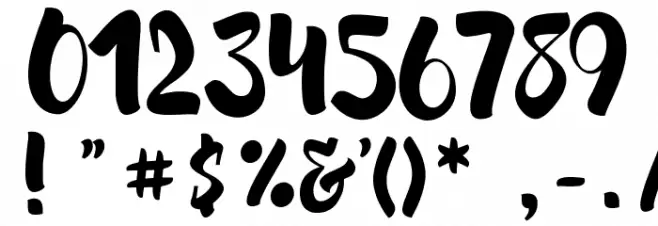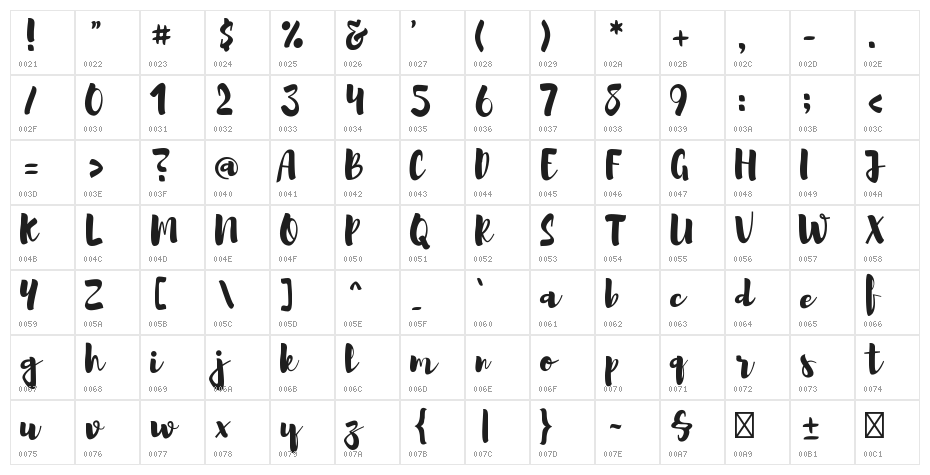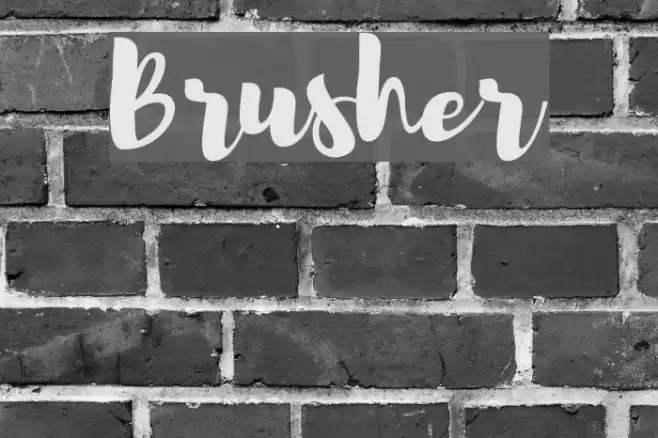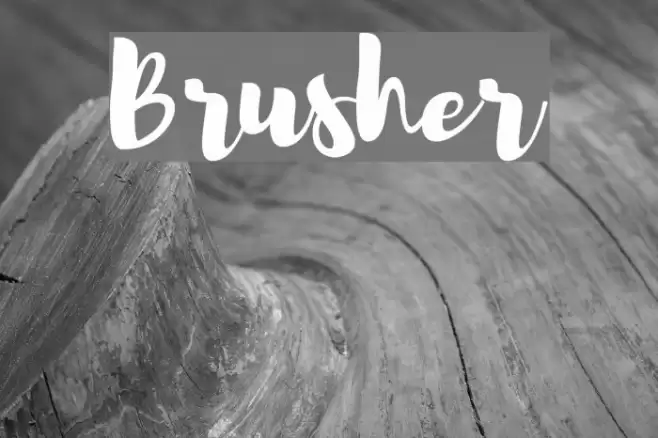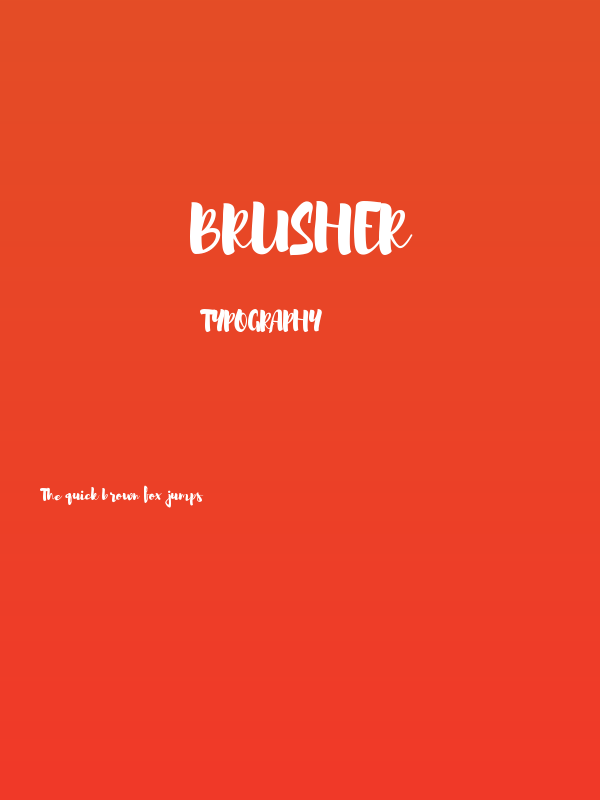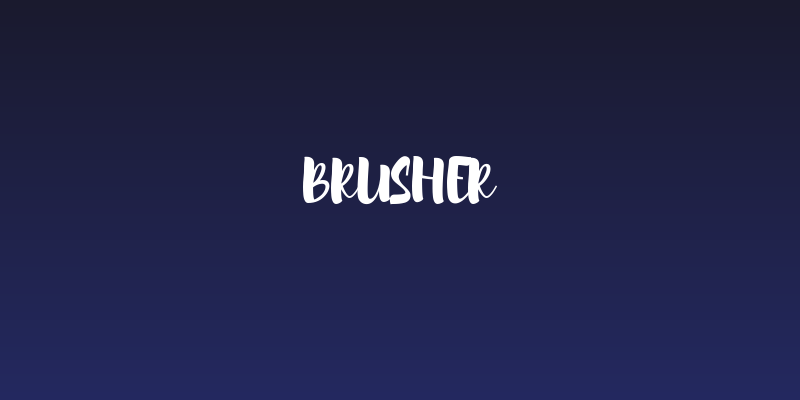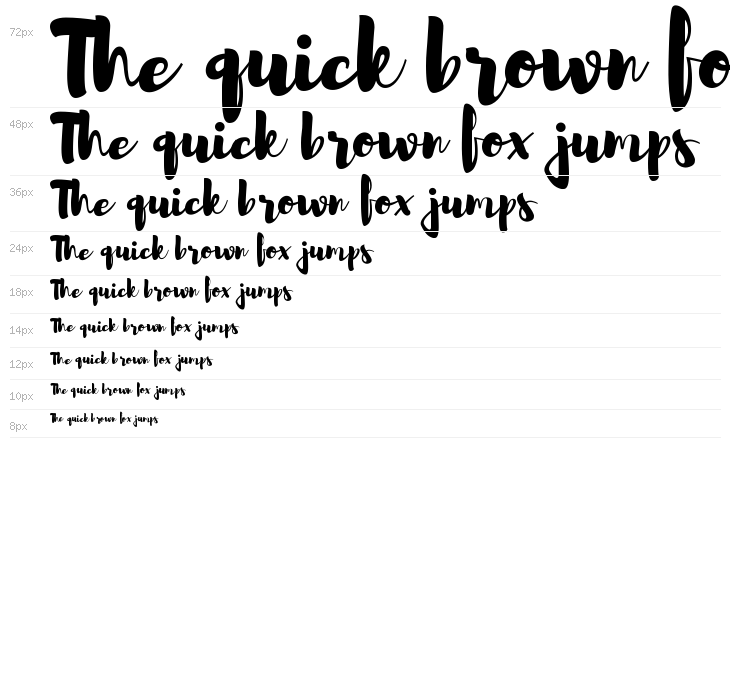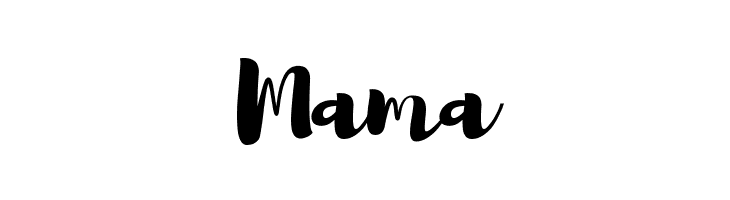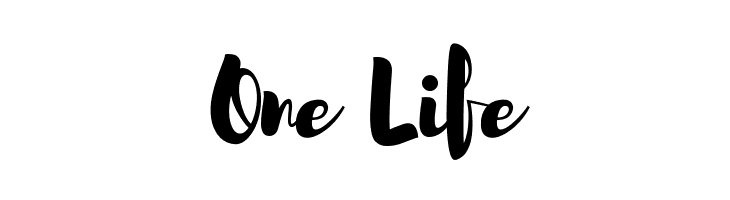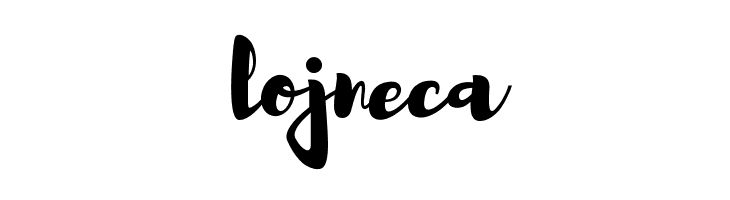
Brusher Font
Brusher Description
This font features a bold, brush-like script style that exudes a sense of energy and creativity. The letters are fluid and connected, with a natural, hand-drawn appearance. The uppercase letters are bold and dynamic, while the lowercase letters maintain a consistent flow, enhancing the handwritten aesthetic. The numbers and special characters complement the overall style, maintaining the same brushstroke effect. This font is ideal for projects that require a personal touch or a sense of artistic flair.
| Proposed Projects | Ideal for branding, logo design, invitations, posters, and social media graphics. |